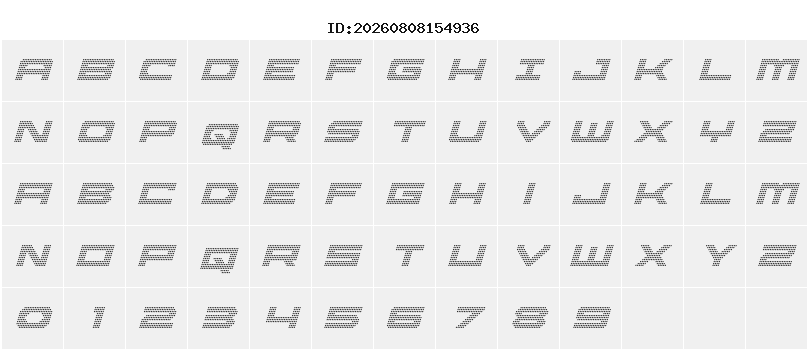
Pocket Ball Condensed Italic Preview
About Pocket Ball Condensed Italic.ttf
Pocket Ball Condensed Italic.ttf is a modern, elegant sans-serif font designed for ultimate readability and visual harmony. Perfect for branding, headlines, web design, and print materials.